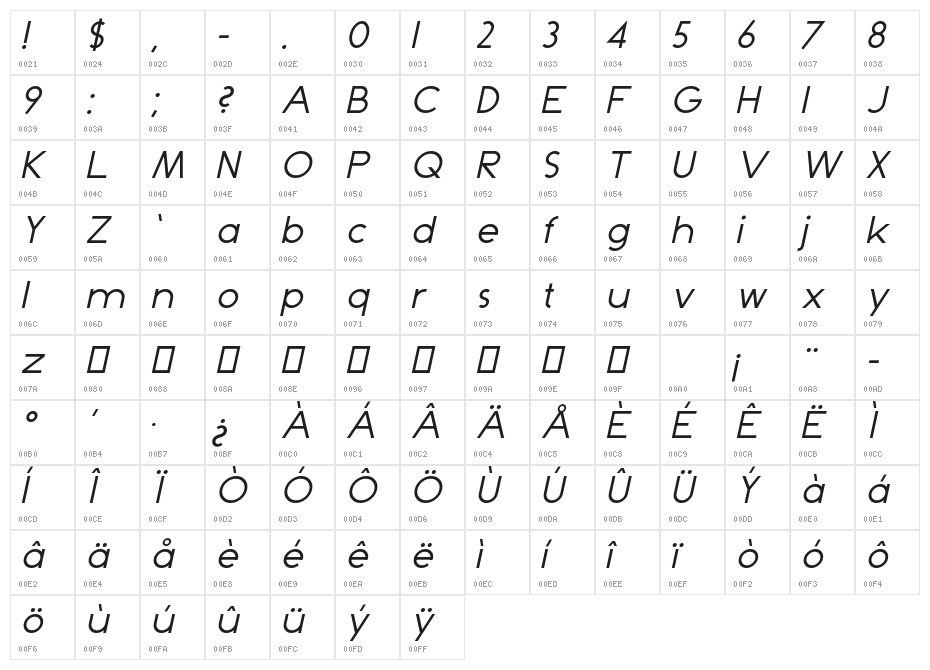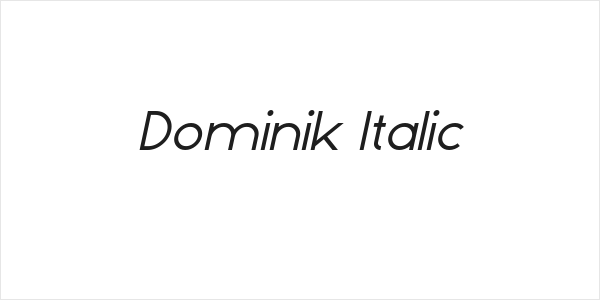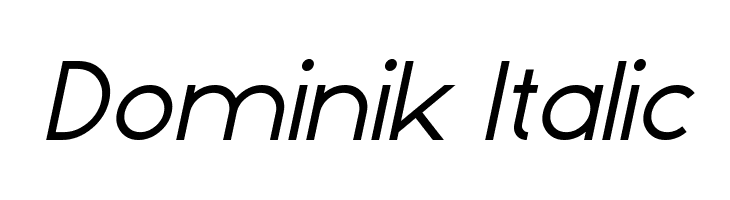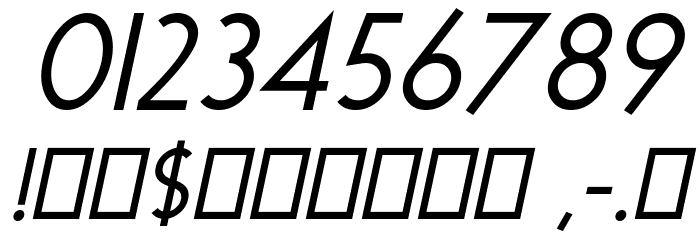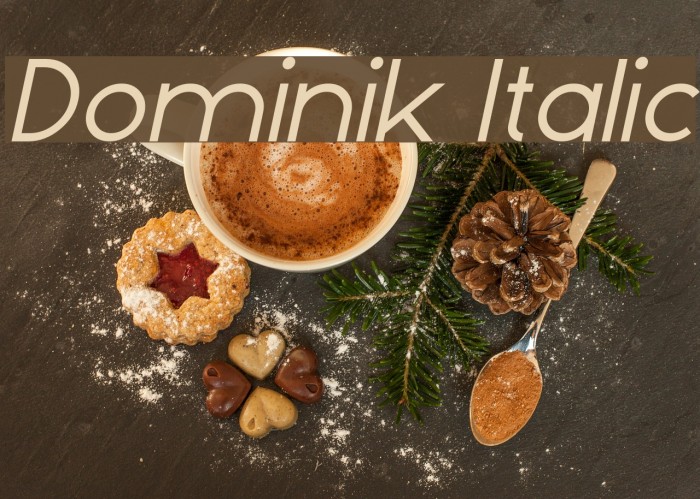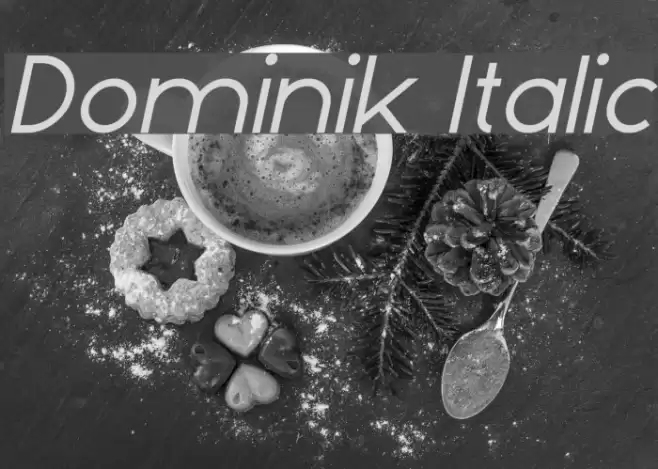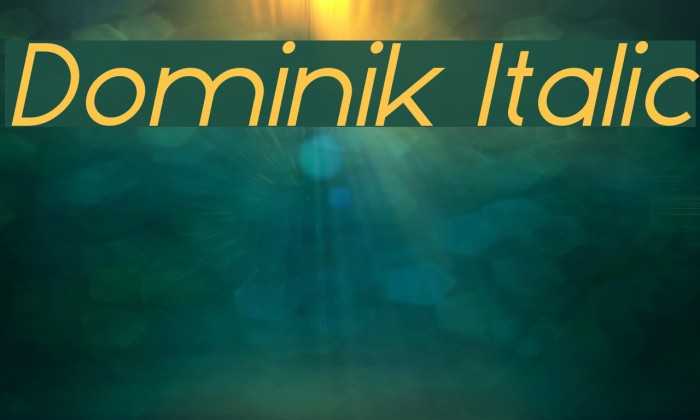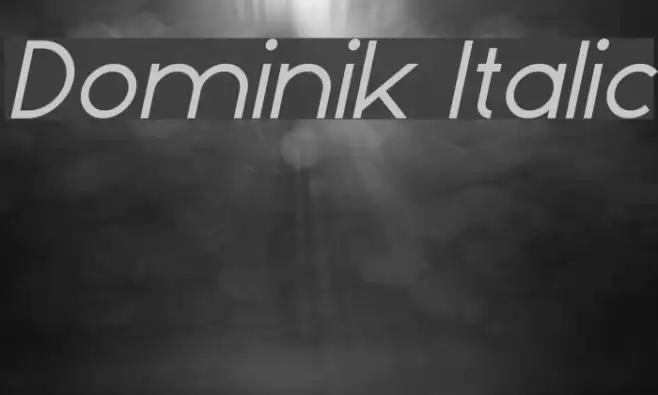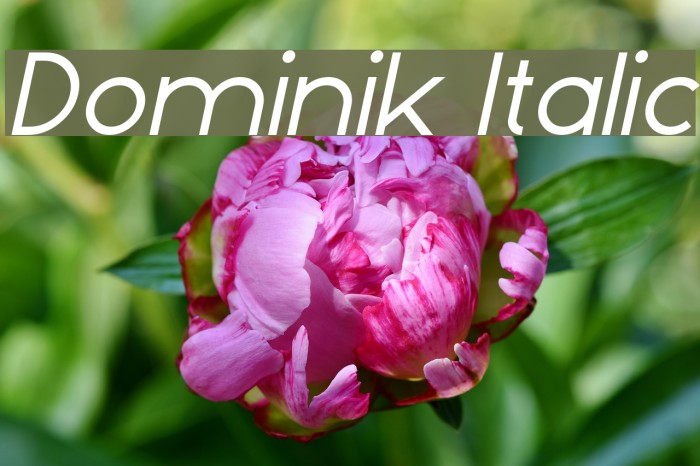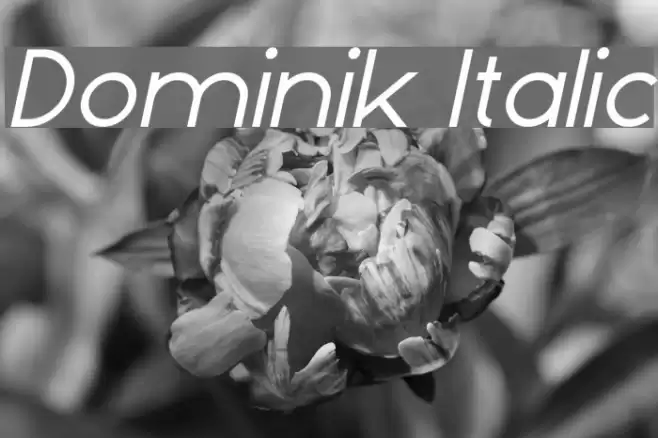
Dominik Italic Font
Dominik Italic Description
This font features a sleek, italicized design with a modern aesthetic. The characters are slightly slanted to the right, giving a sense of motion and elegance. The strokes are clean and uniform, with a consistent thickness that maintains readability. The uppercase letters are tall and commanding, while the lowercase letters are more rounded and approachable. The numerals are clear and distinct, making them easy to read. Special characters are well-integrated, maintaining the overall style of the font. This typeface is versatile, suitable for both digital and print media.
| Use Case | Headlines, Body text, Logos |
| Proposed Projects | Ideal for branding, advertising, and editorial design where a modern and elegant touch is desired. |